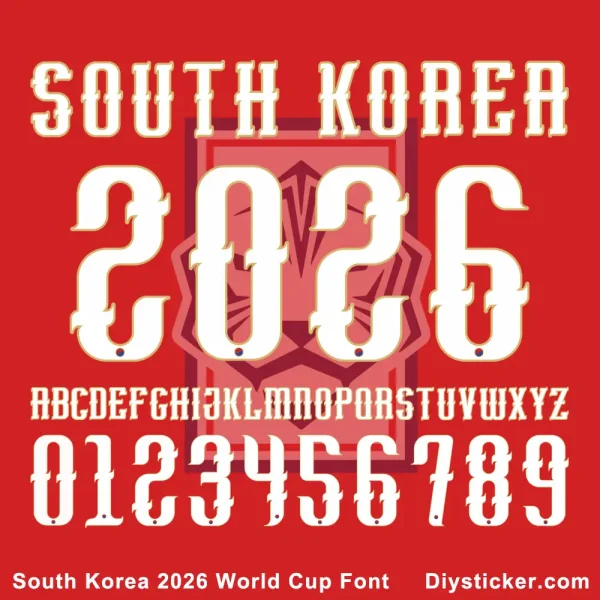
Get the iconic South Korea 2026 World Cup kit font! This premium digital pack features the unique, calligraphy-inspired typeface worn by the Taegeuk Warriors. Perfect for custom jerseys, graphic design, and sports branding.
Design: Traditional Korean Calligraphy (Seoye) Style
Custom South Korea 2026 World Cup Font Collection
Elevate your sports design projects with the official-style South Korea 2026 World Cup font. As South Korea prepares for the 2026 FIFA World Cup, their kit design has taken the world by storm. This font captures the essence of the “White Tiger” ambush and the elegance of Korean heritage.
Why Choose This Font?
The 2026 South Korea typeface is not just a standard athletic block font. It is a masterpiece that blends traditional Korean calligraphy (Seoye) with modern geometric precision. The sweeping strokes and delicate “flicks” at the joints mimic brush movements, making it one of the most artistic fonts in football history.
Note: This font includes the full alphabet and the distinctive numbering system featuring the KFA (Korea Football Association) crest at the base.